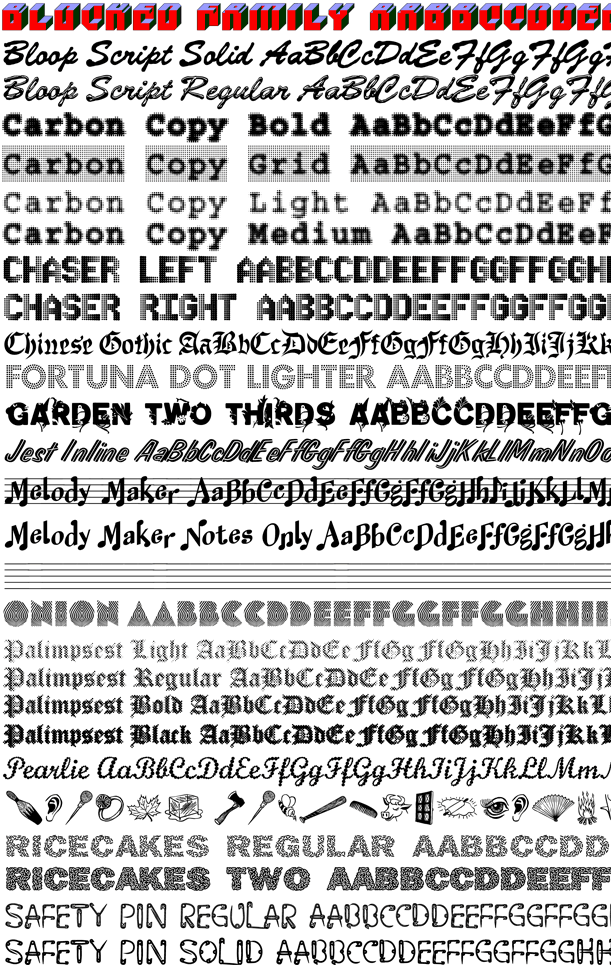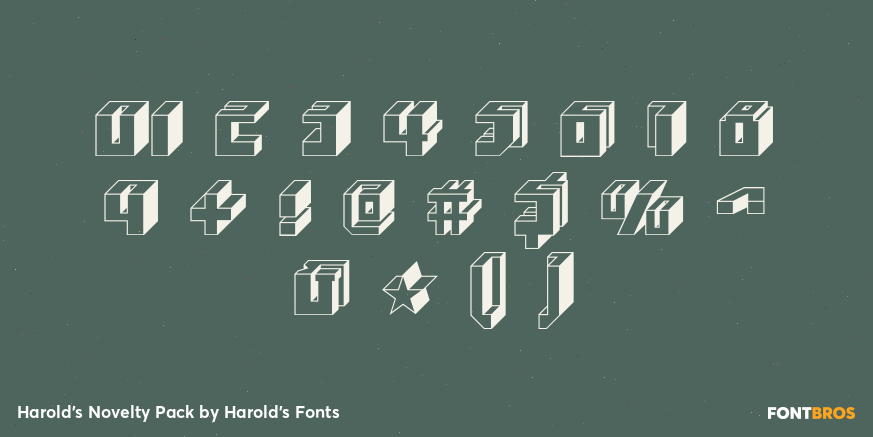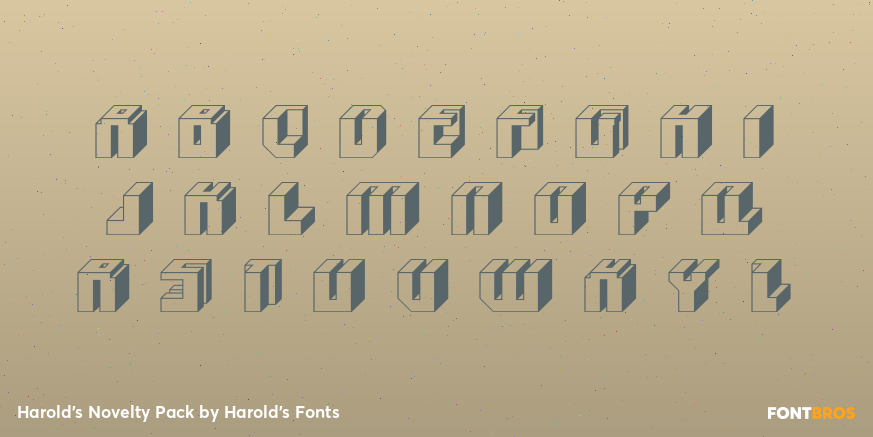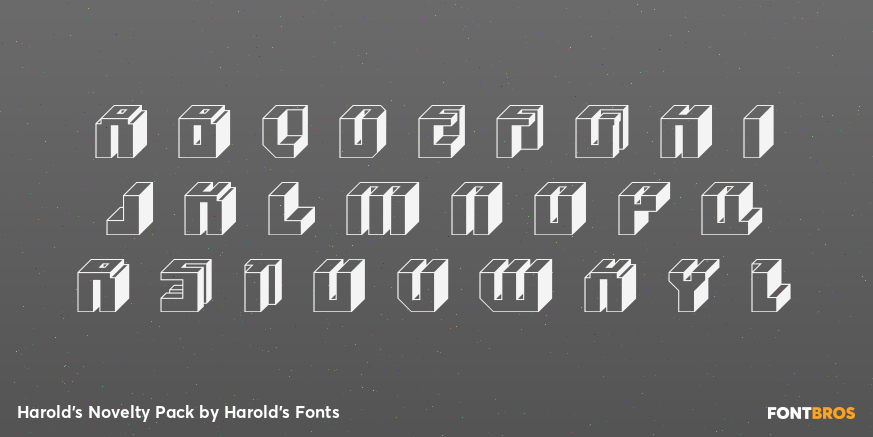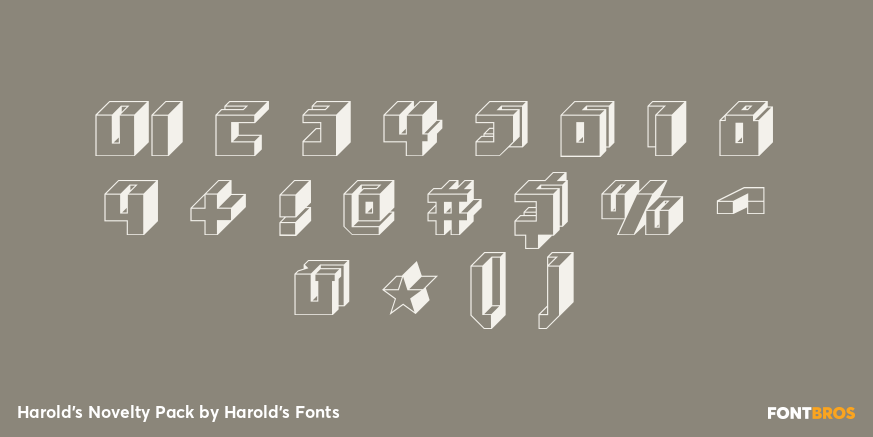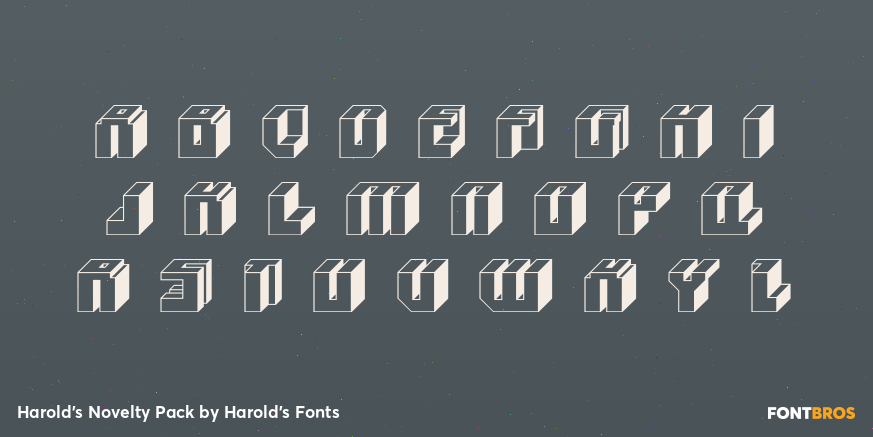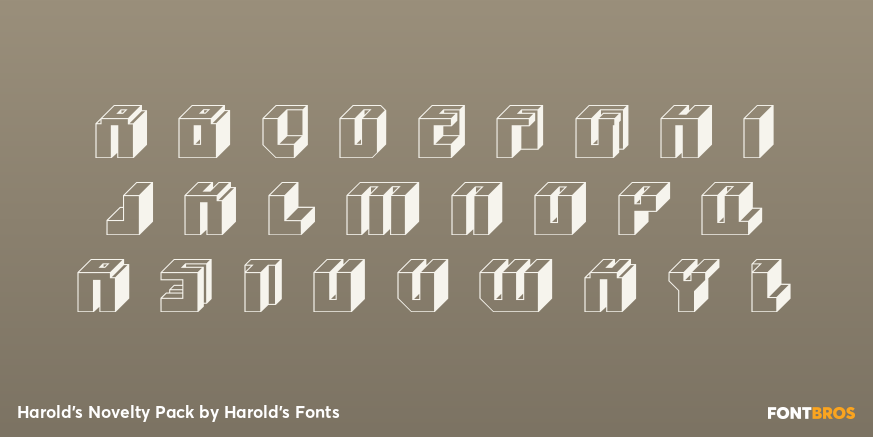
Harold's Novelty Pack
Font Bundle by Harold's Fonts
A collection of special effects you can achieve by simply typing. From humorous to crafty to futuristic, specialized fonts for special purposes.